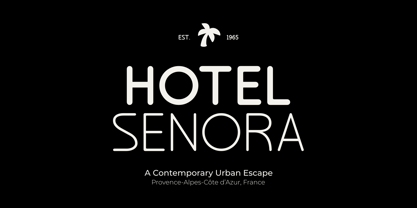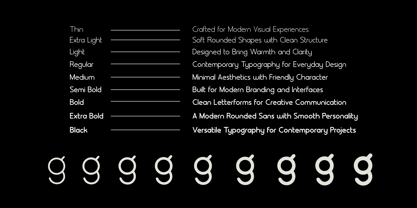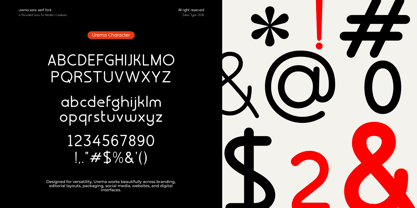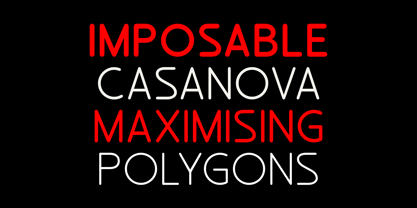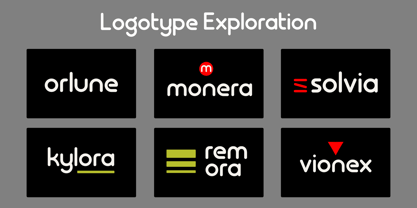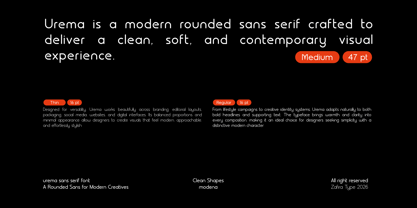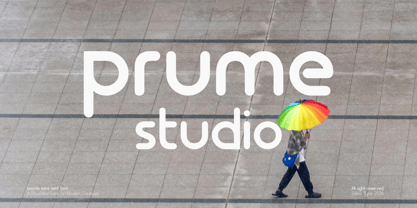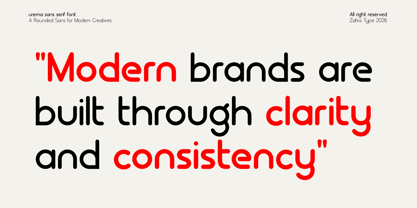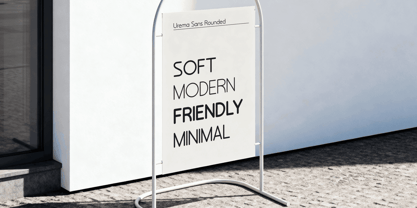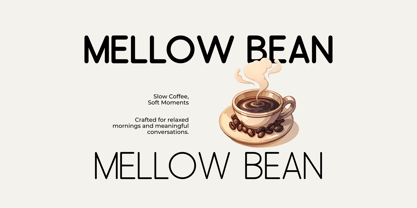
Urema
The Urema Font Family was designed by Su Hirno and published by Zafira Type. Urema contains 9 styles and family package options. More about this family
Urema is a modern rounded sans serif designed with soft curves, clean geometry, and contemporary balance. Created to deliver a friendly yet refined appearance, Urema works beautifully across branding, editorial layouts, packaging, social media, websites, and digital interfaces.
Featuring 9 weights from Thin to Black, Urema offers excellent versatility for both bold headlines and clean body text. Its smooth construction and modern character make it an ideal choice for designers seeking clarity, warmth, and flexibility in contemporary visual design.